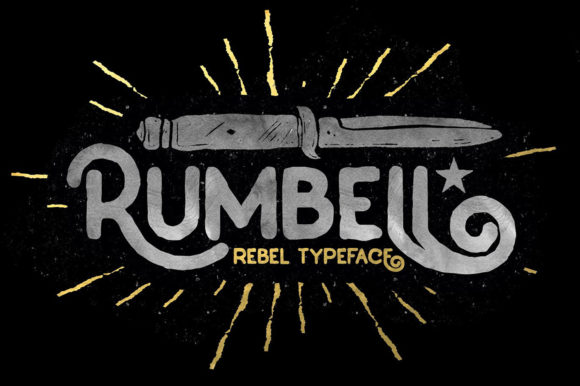
Introducing Rumbell, the font that speaks ruggedness and intrigue. Immerse yourself in the allure of a display font that redefines creativity. Join countless apparel brands etching their mark on the industry with Rumbell, a font meticulously crafted to leave a lasting impression.
Rumbell's charm lies in its rough-hewn texture, giving life to letters that exude an artisanal flair. This unique aesthetic will ignite your imagination, propelling your designs to captivating heights. Unleash the full potential of your branding with Rumbell, a font that embodies raw power and finesse.
Experience the versatility of Rumbell, a font that adapts seamlessly to a myriad of creative endeavors. From letterheads and titles that command attention to stationery that whispers elegance, Rumbell is your ultimate design companion. Its inherent versatility extends beyond the realm of apparel, inviting you to explore new horizons in branding, marketing, and beyond.
Embrace the essence of originality with Rumbell, a font born from the fusion of creativity and innovation. Allow your brand to stand out, to be remembered, to make an impact that reverberates through the industry. Rumbell is your passport to a world of endless possibilities, where your vision takes center stage.